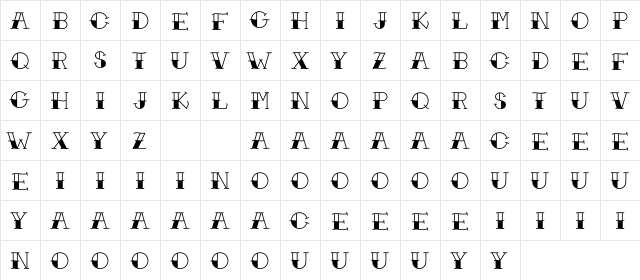
Traditional-Tattoo Regular
| Designer | Biroakakarati |
Design Context for Traditional-Tattoo Typeface
Traditional-Tattoo is a composed and adaptable typeface that performs quietly and consistently across a wide range of design contexts.